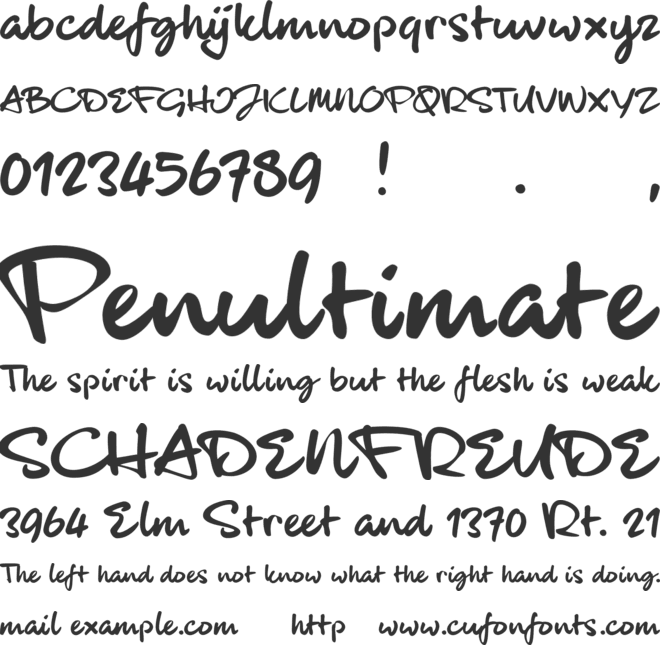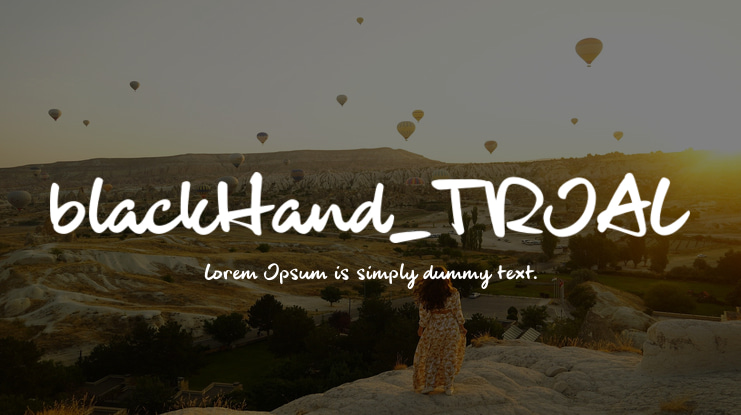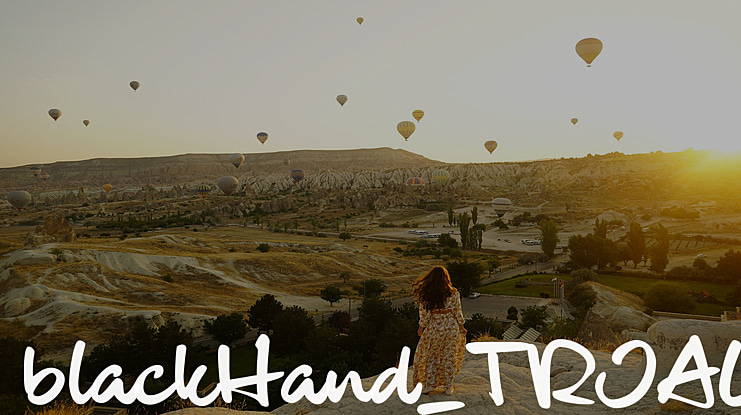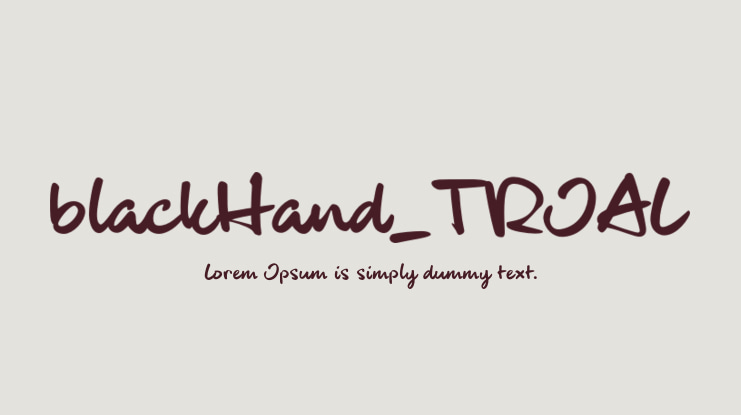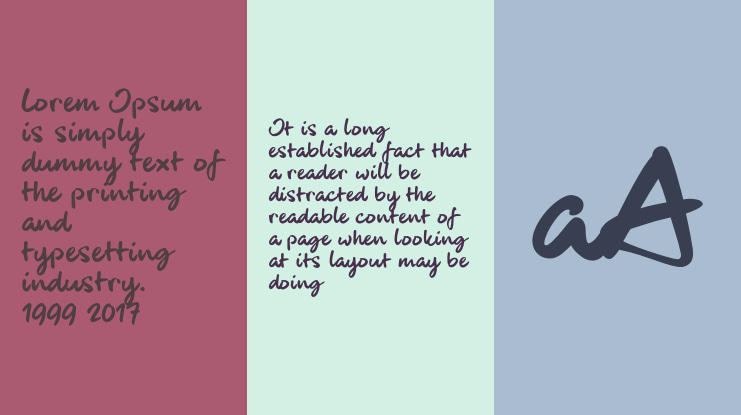
blackHand_TRIAL Font
This is a TRIAL version of JOEBOB grpahics' blackHand font. The complete font, which can be bought here: www.joebobgraphics.com/fonts/blackhand/ (https://www.joebobgraphics.com/fonts/blackhand/) comes with 150 ligatures, which make for a authentic handwritten look and feel. Those ligatures are not in this TRIAL version and so you're missing out on what makes this font so special. You can give the complete font a test-run on the above mentioned page.Also, please note that this TRIAL version can not be embedded in a PDF and it can not be printed.In case you have any questions regarding this font, please contact me.